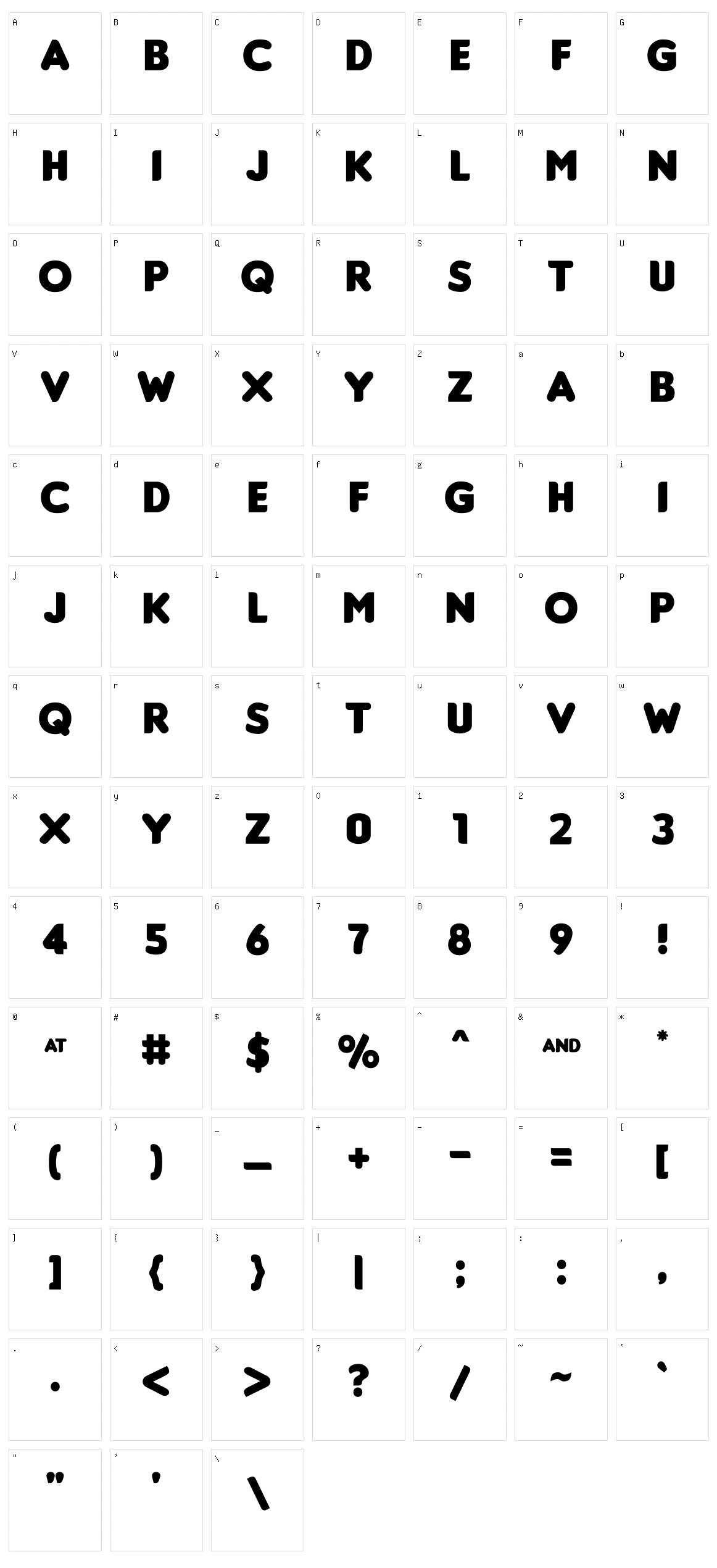
Thanks for downloading "Insaniburger" from Insanitype! Font Design. This zip file contains "Insaniburger Regular" and "Insaniburger with Cheese". "Insaniburger Regular" is based on the old Burger King logo that's still seen on some of the signs in smaller cities. "Insaniburger with Cheese" is based on the new logo, which is somewhat similar to the old one, but with a playful yet futuristic twist. Use it for anything, and let me know if you do!